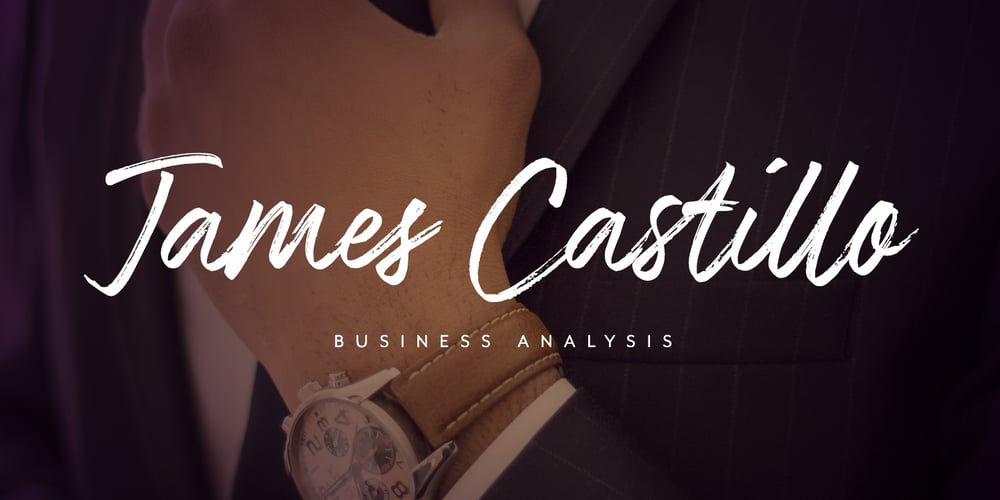
Boutique in Heaven Font Family was designed by Ivan Rosenberg and published by Ivan Rosenberg. Boutique in Heaven contains 1 styles and family package options. Boutique in Heaven is casual brush font with multilingual support. It is ideal for t-shirts, magazines, phone covers, social media, restaurant menus, greeting cards, invitations, weddings, headers and many more. This brush font comes with a complete set of lowercase and uppercase characters, a large range of punctuation ligatures, numerals, lowercase alternates and and multilingual support. For access to Stylistic Alternates is required software with glyphs panel like Photoshop, lllustrator, Inkscape etc. Ligatures shows up automatically.